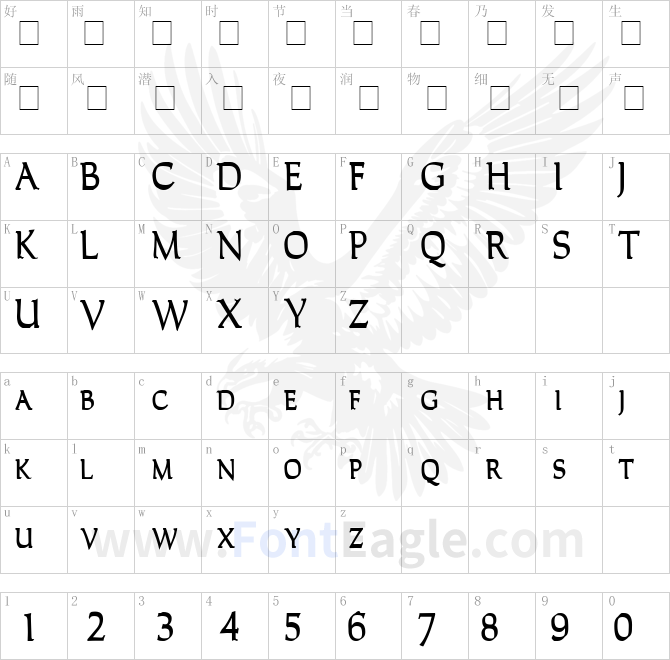
Carla-Thin-Bold is a great font, widely used in graphic design, single-page menu design, poster design and other fields, and is deeply loved by designers.Carla-Thin-Bold download.